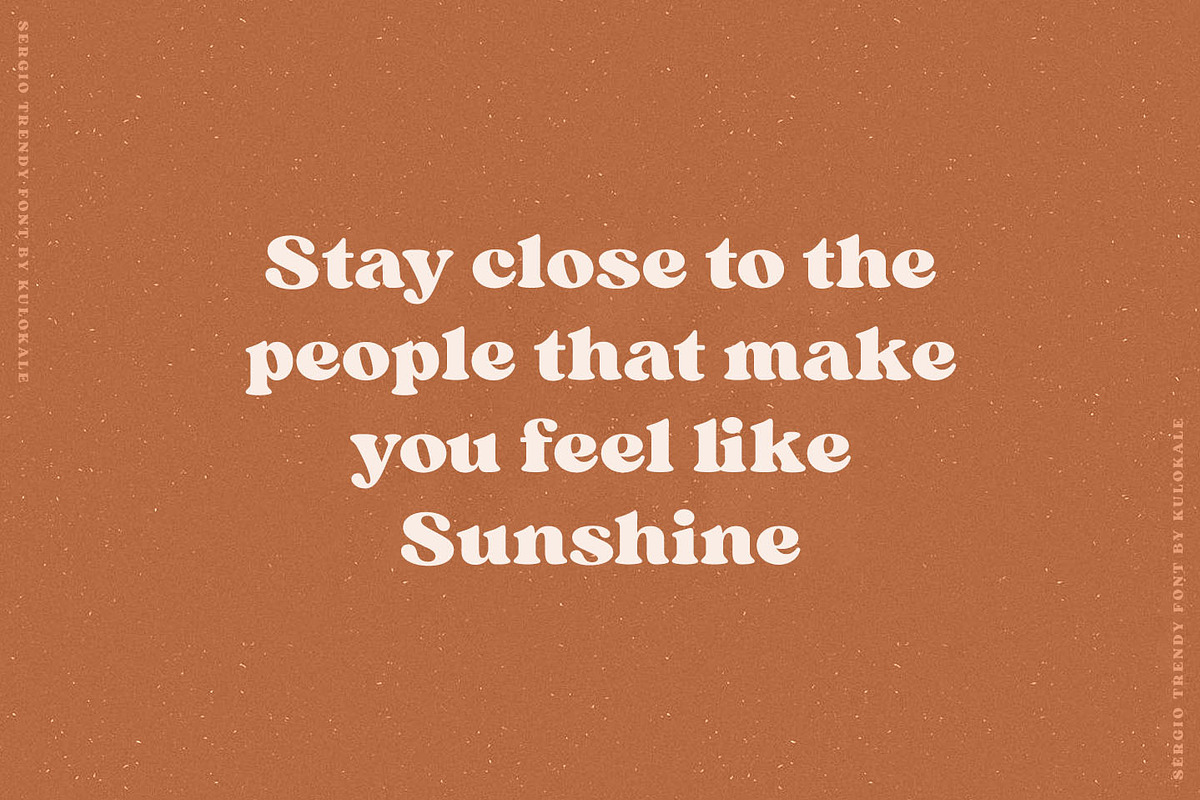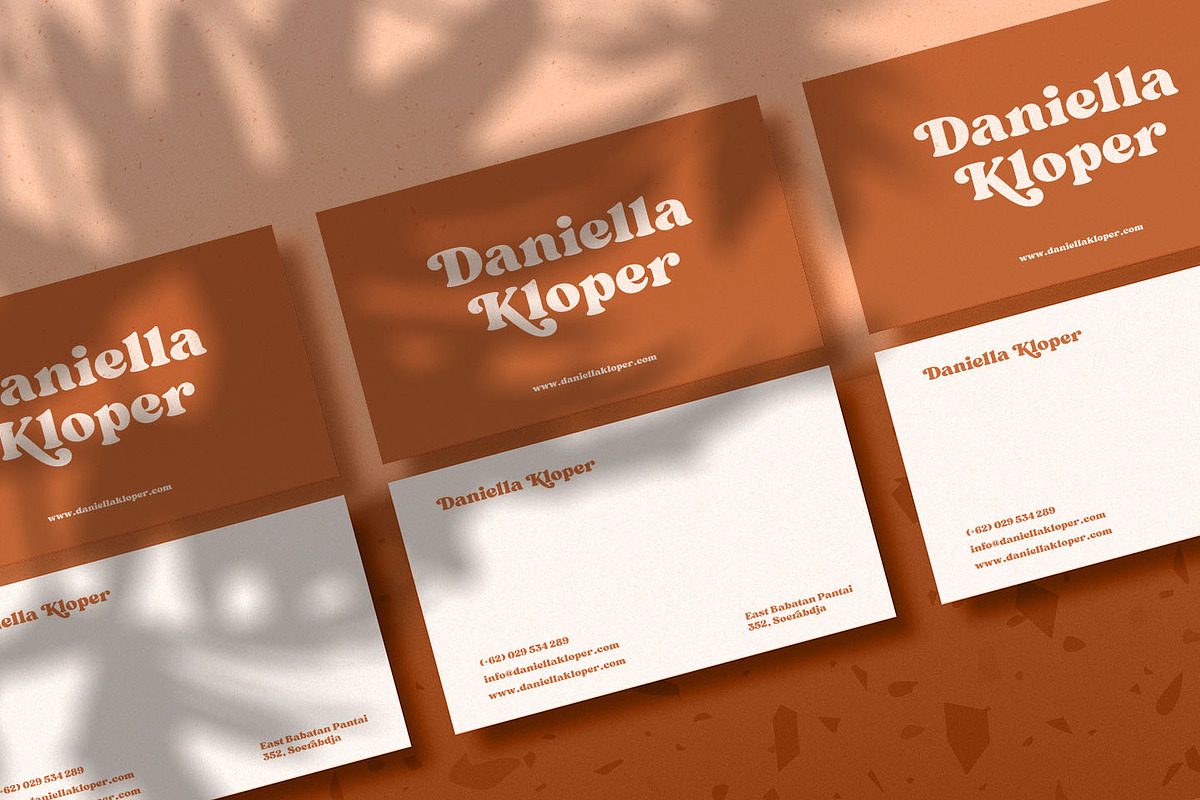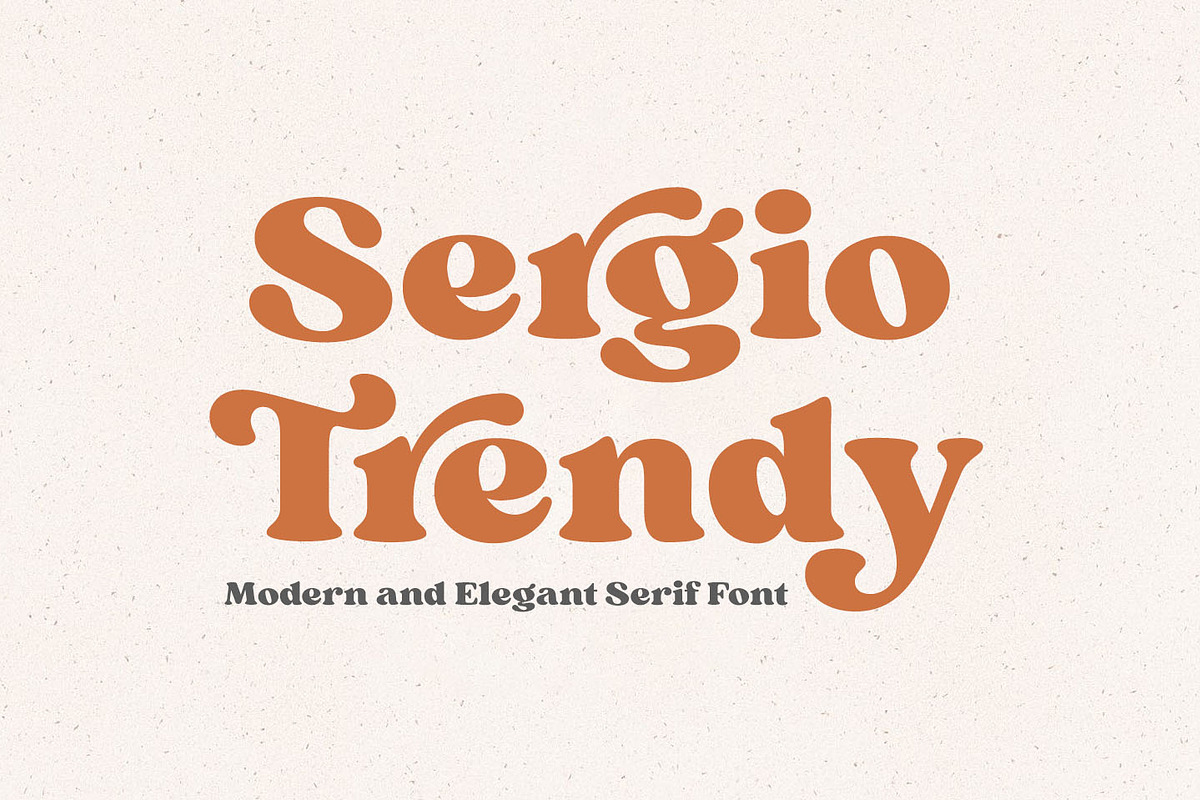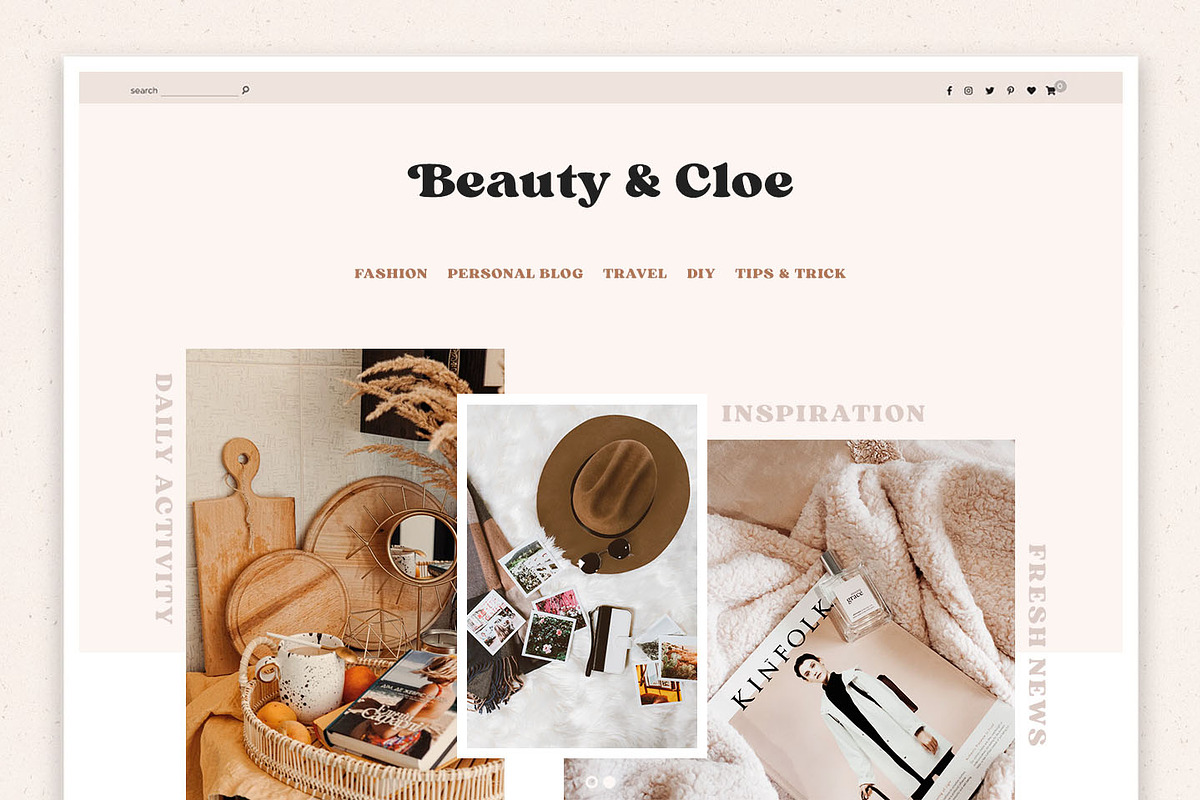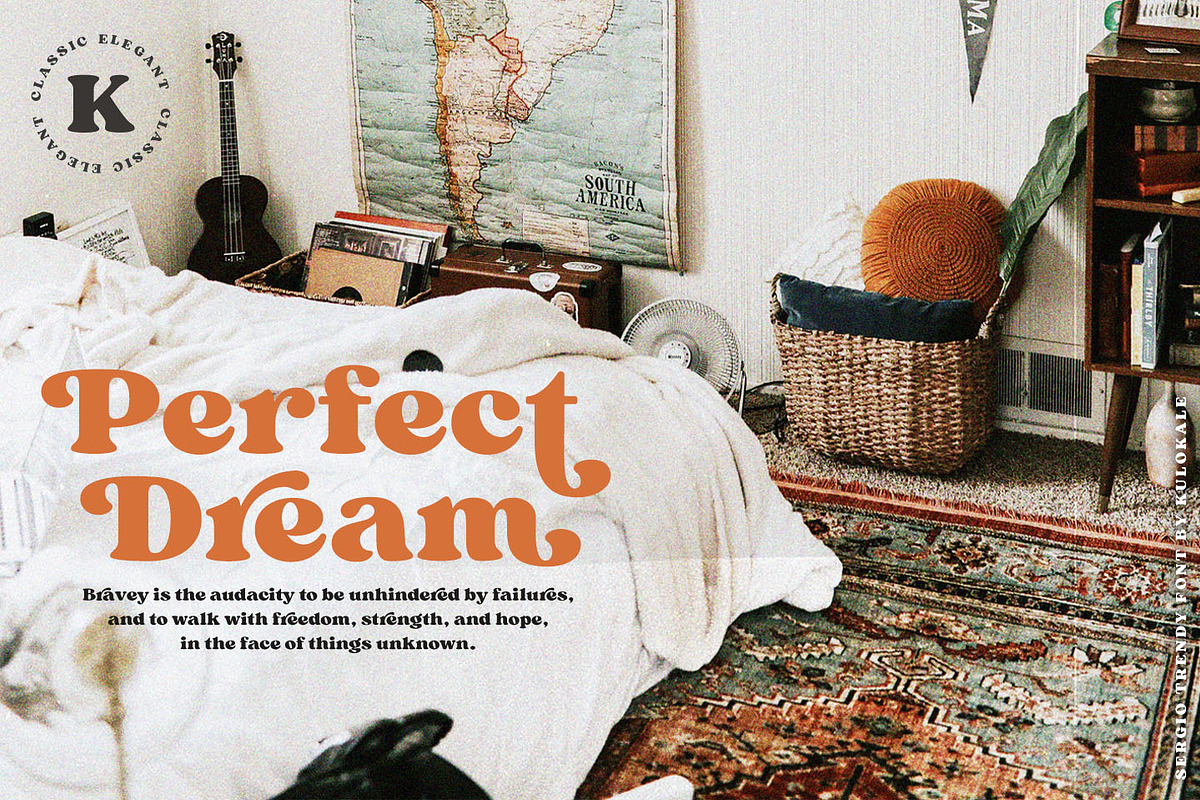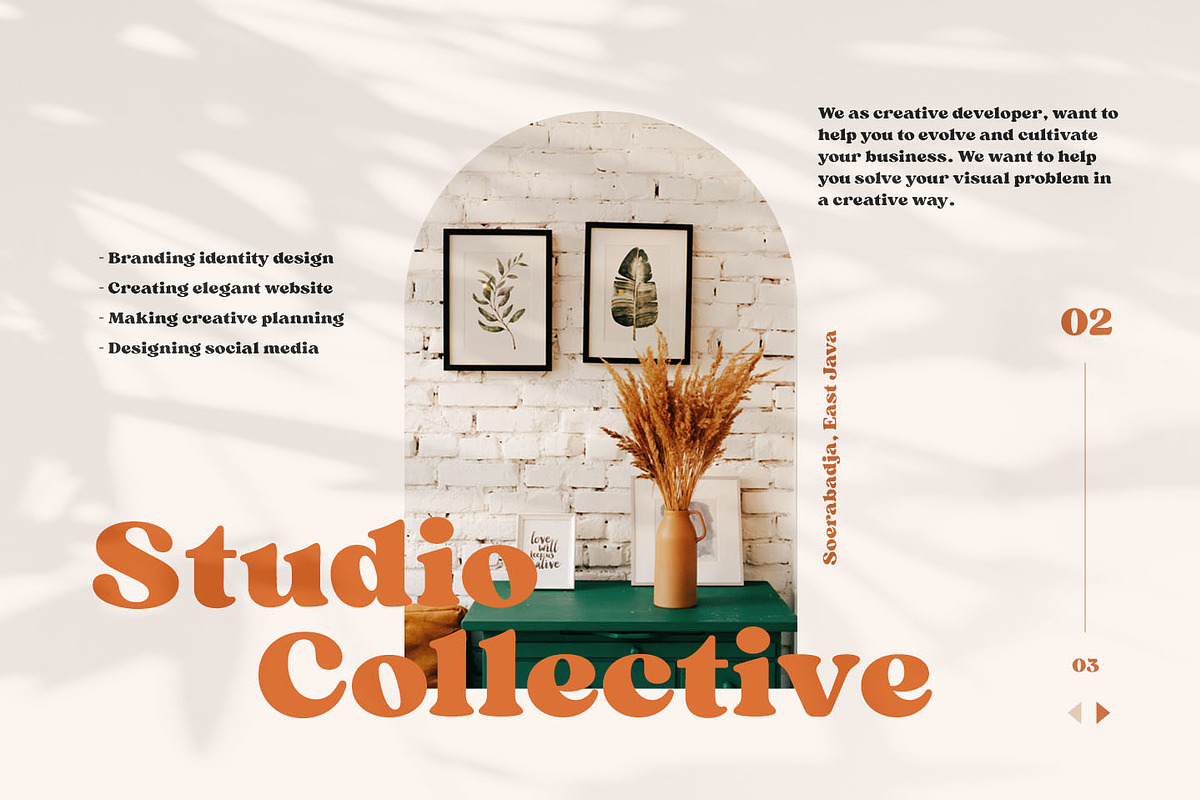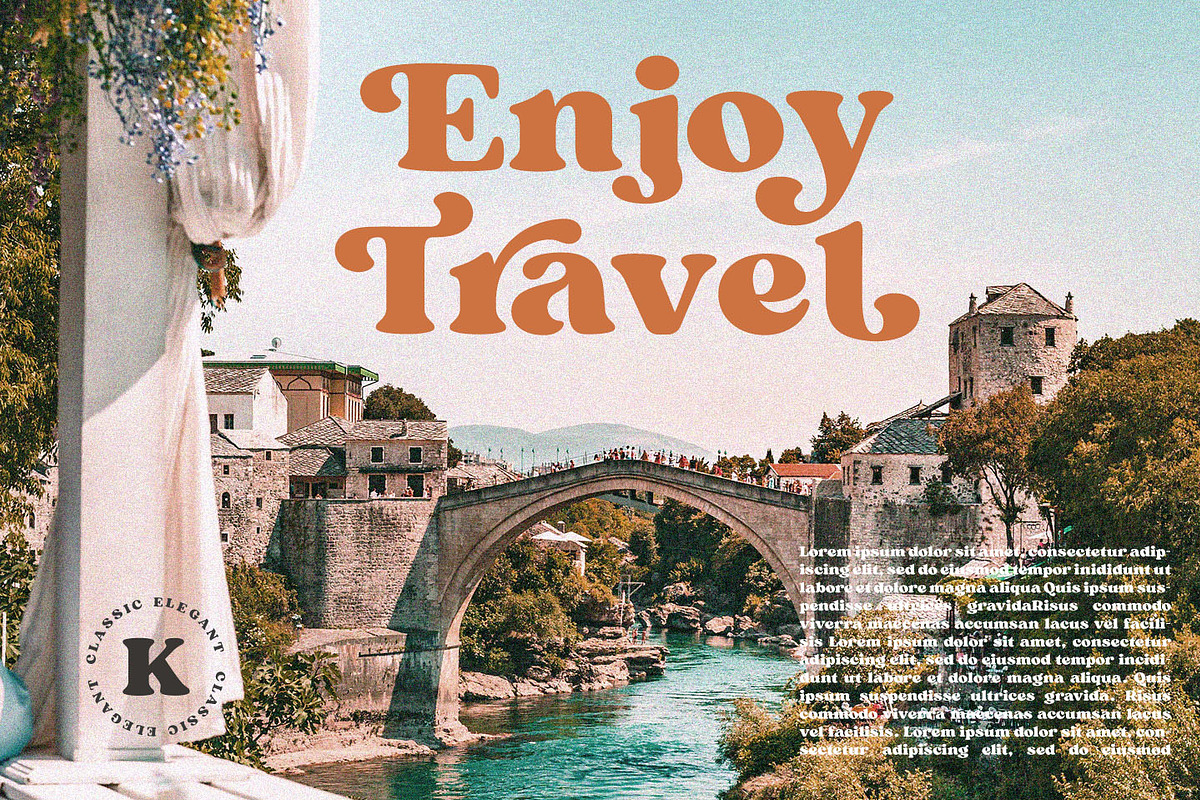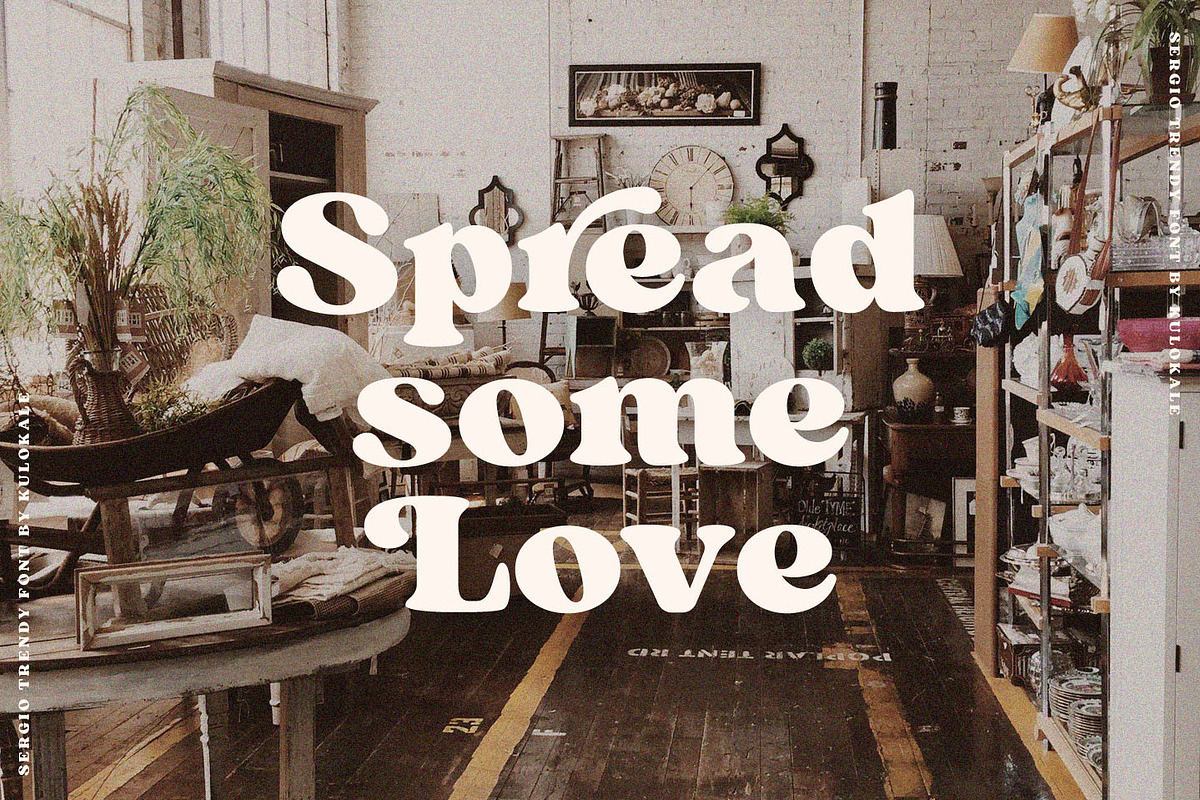
Sergio Trendy - Modern Serif Font
Sergio Trendy is a modern and elegant serif font. Sergio Trendy is well-suited for advertising, branding, logotypes, packaging, titles, headlines and editorial design.
- Sergio Trendy includes Capital and Lowercase letters, Alternates, and Ligatures
- Numbers + punctuation
- Foreign language support